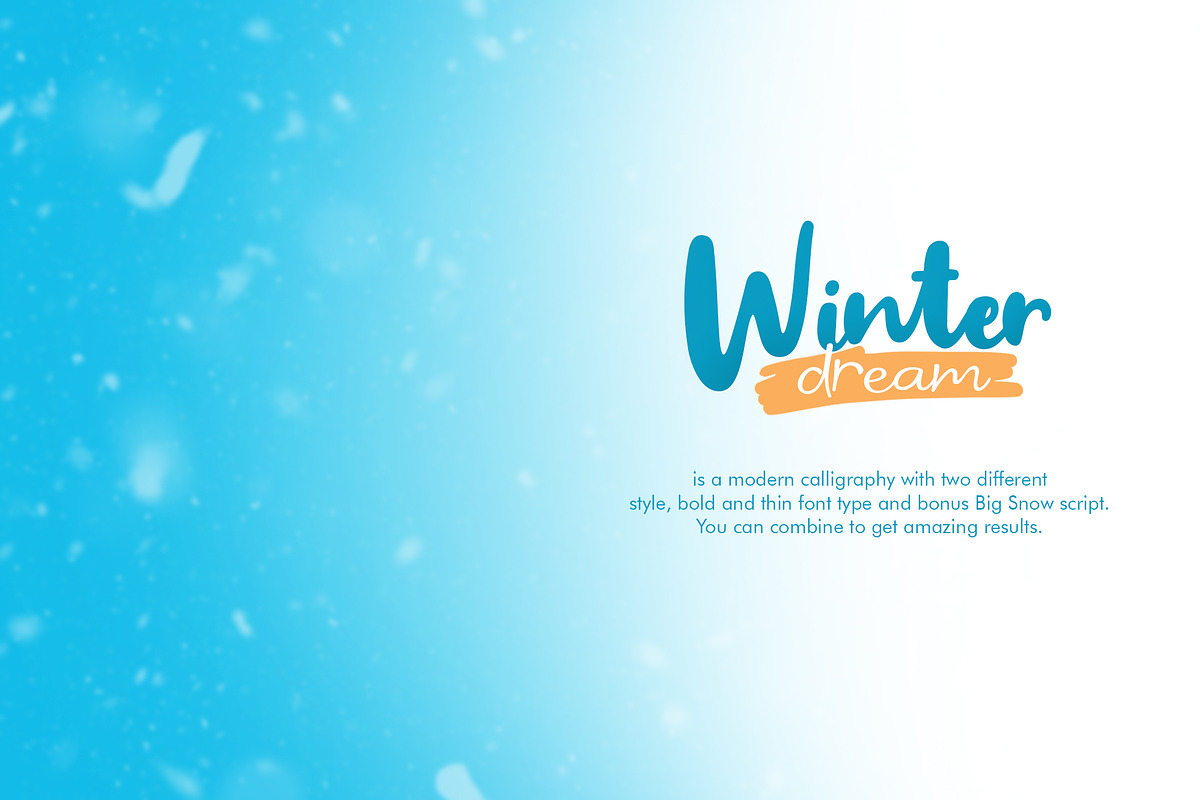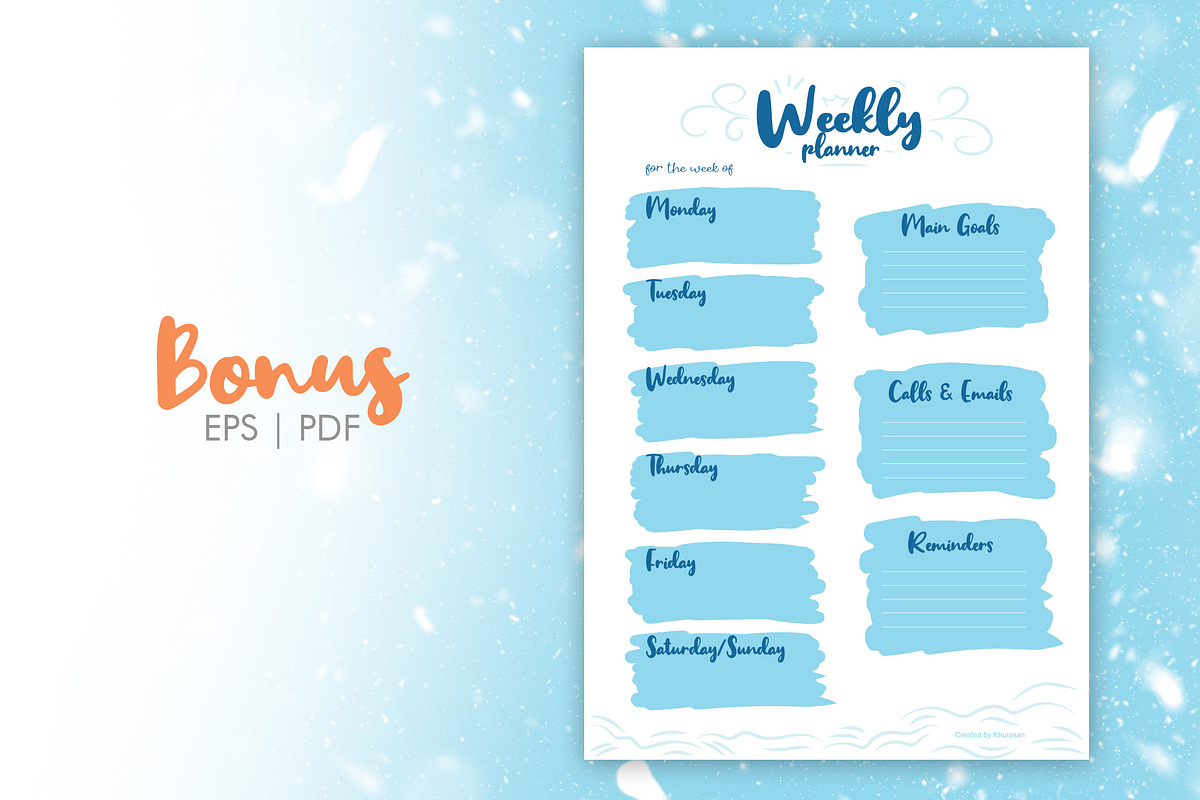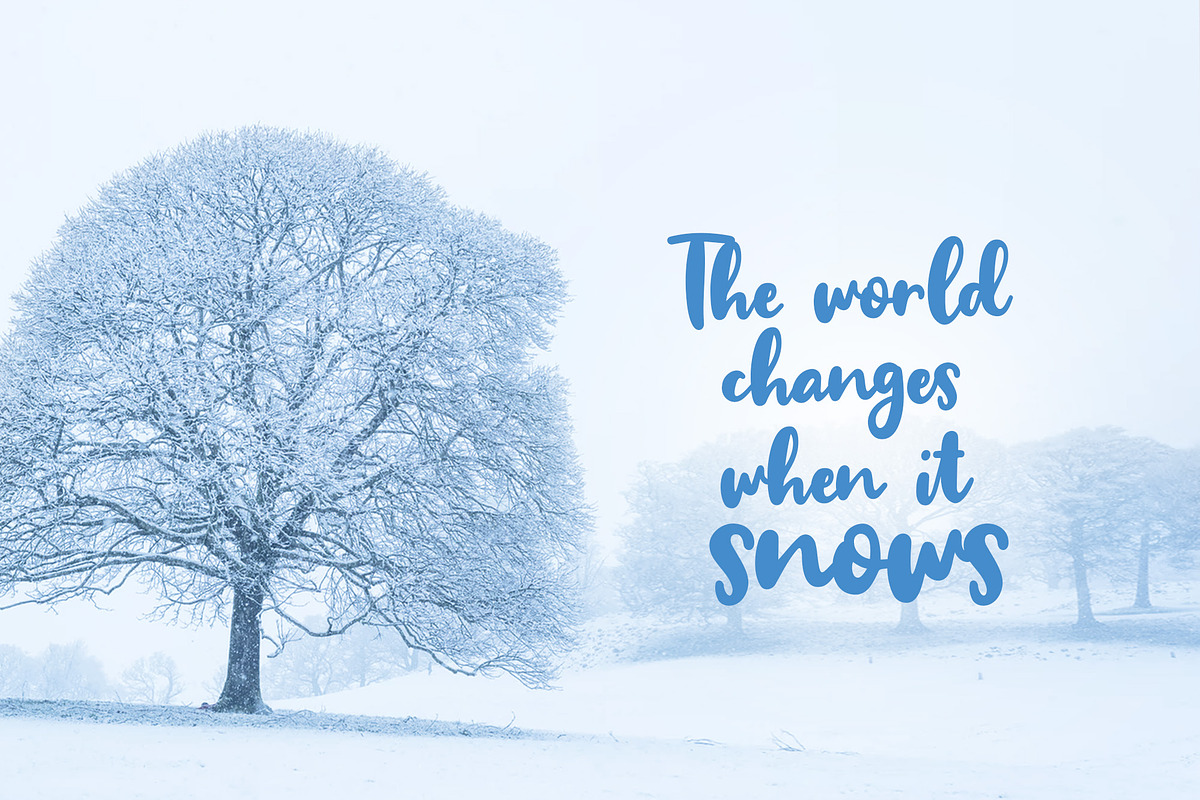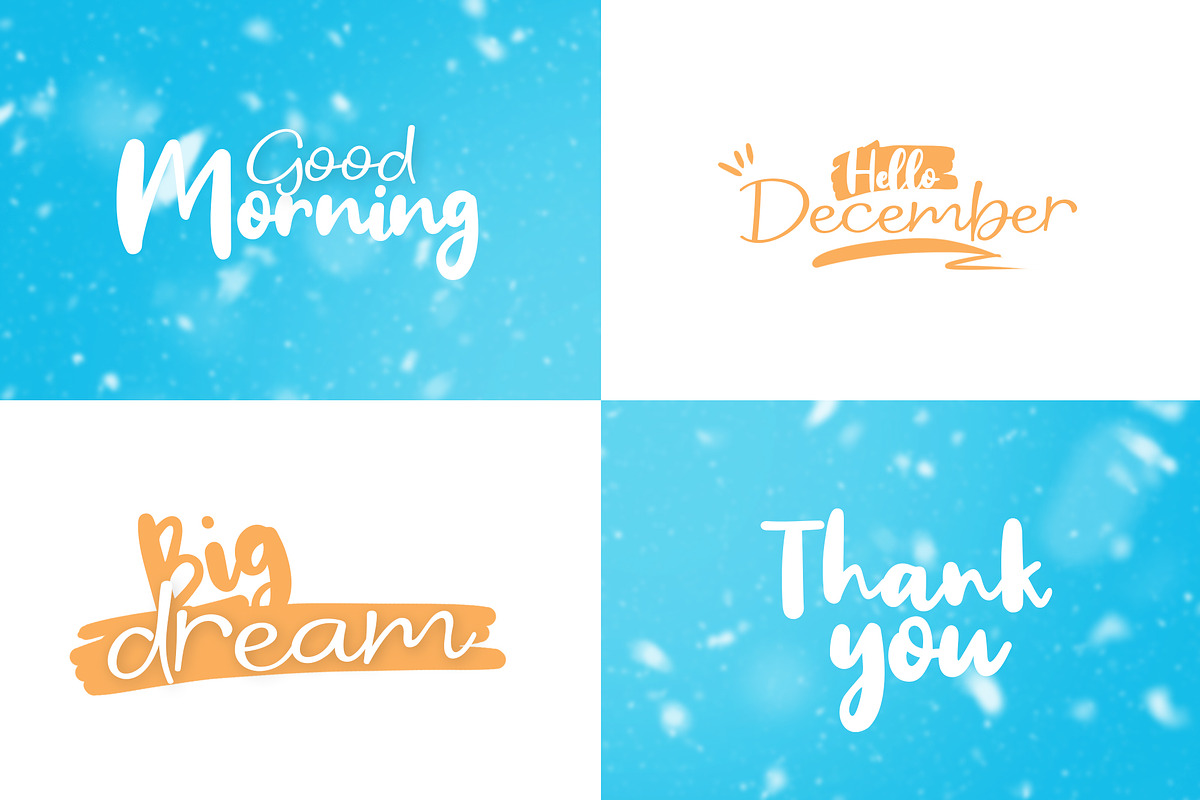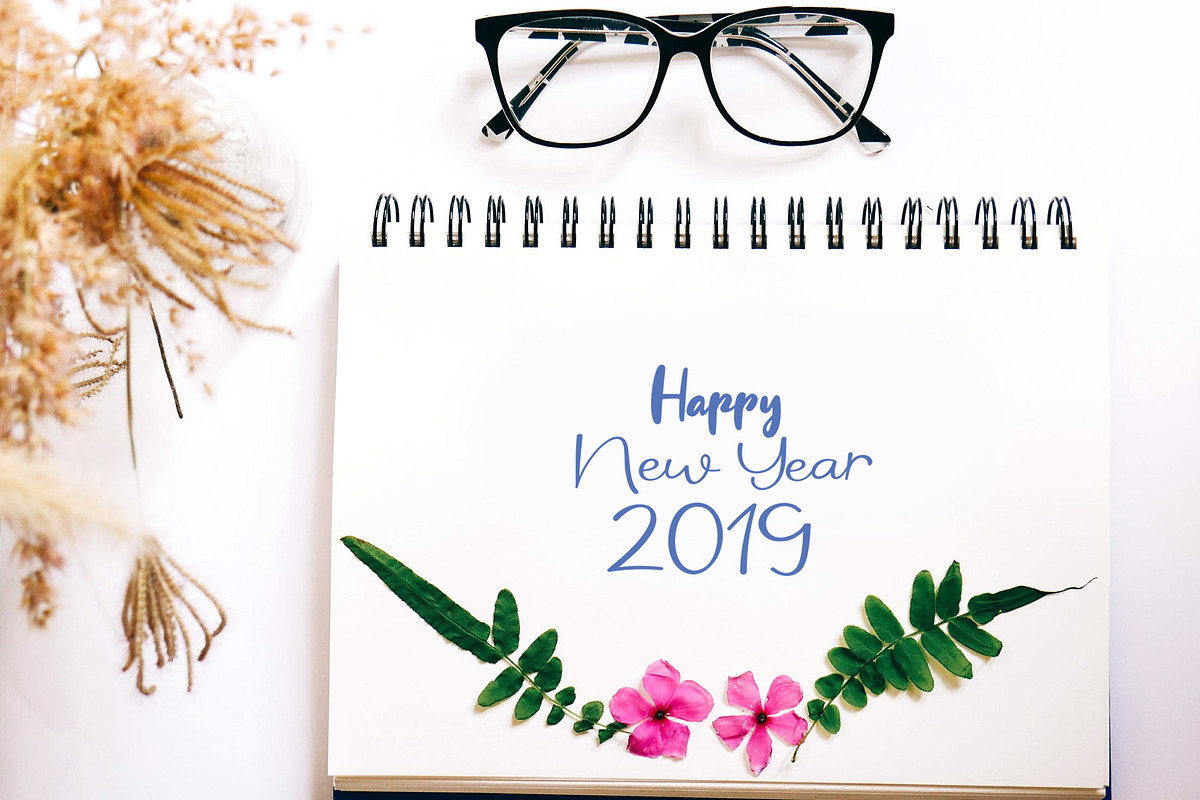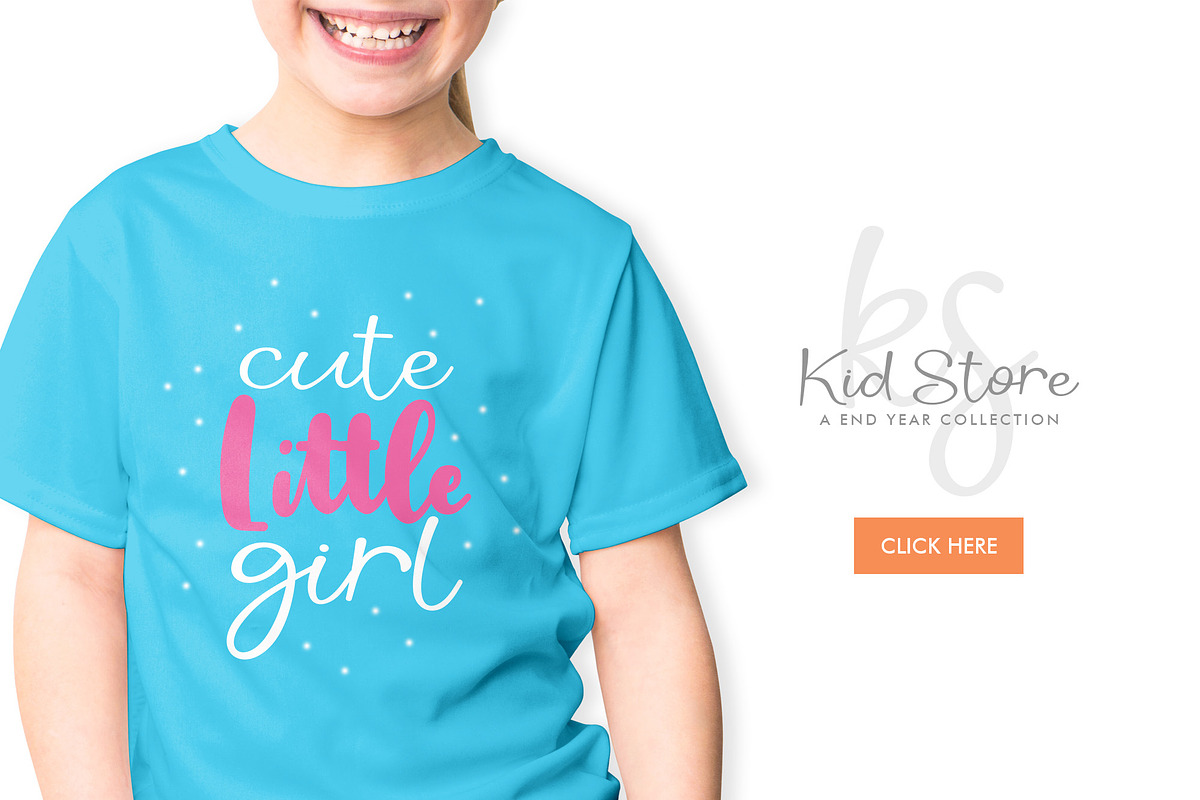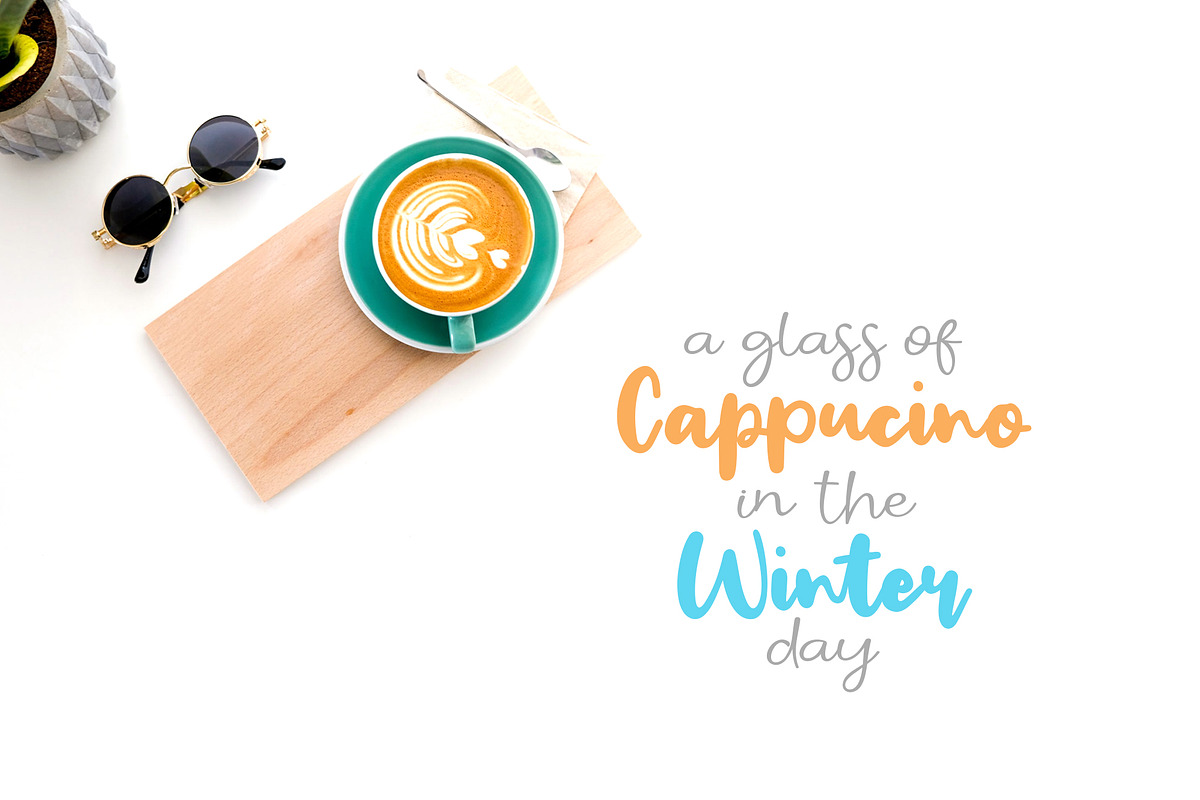
Winter Dream Trio Font
Introducing the Winter Dream Trio Font with two different style, bold and thin and bonus Big Snow script font. You can combine to get amazing results. Winter Dream it’s perfect for namecard, poster, logo, magazine, cover, banner, tshirt and headers, or even large-scale artwork..